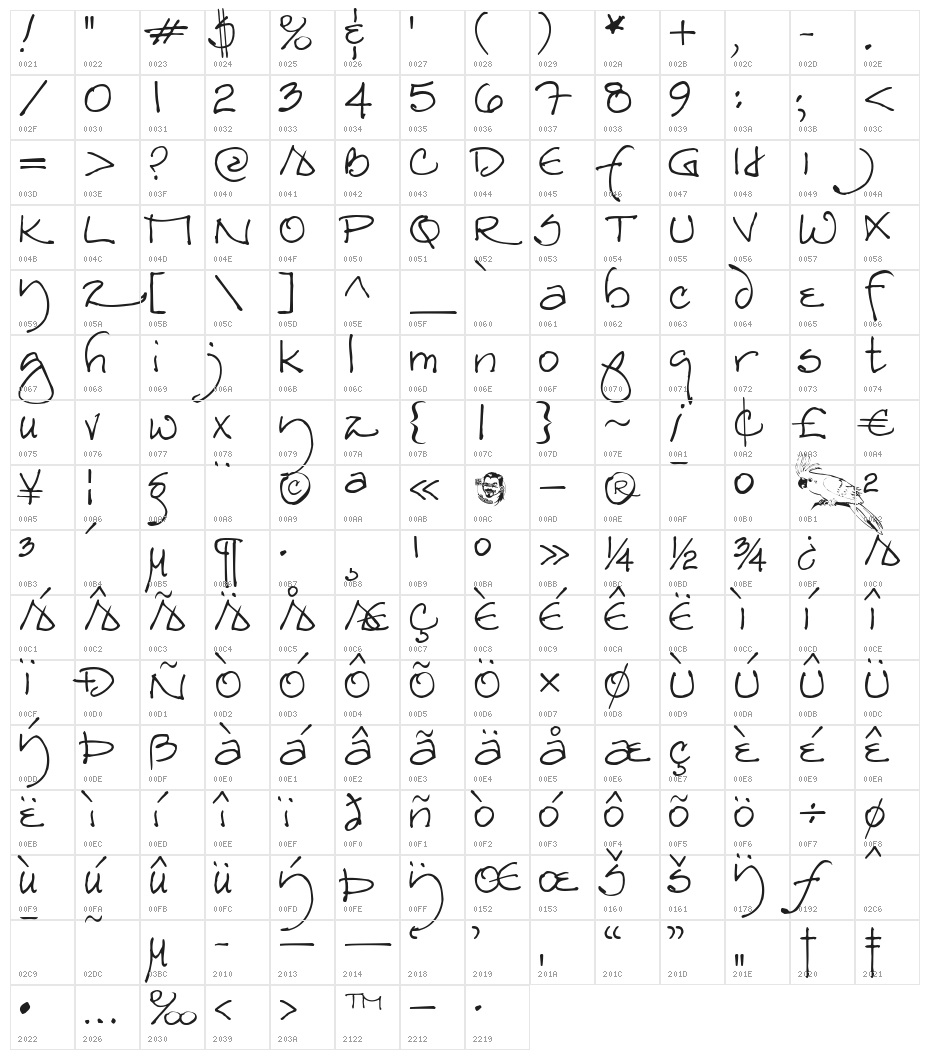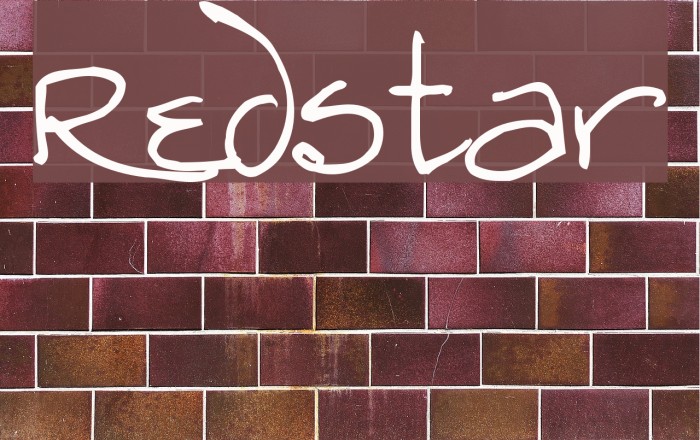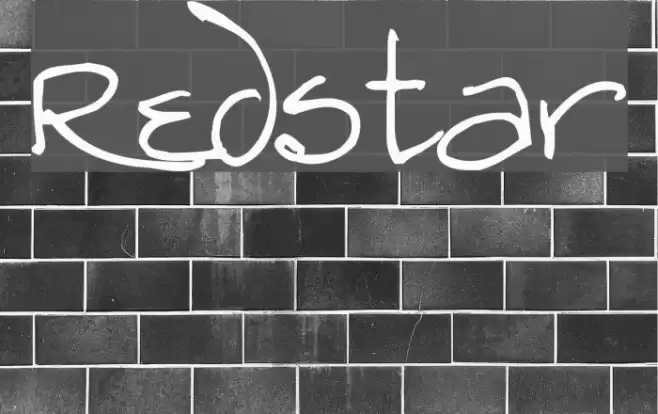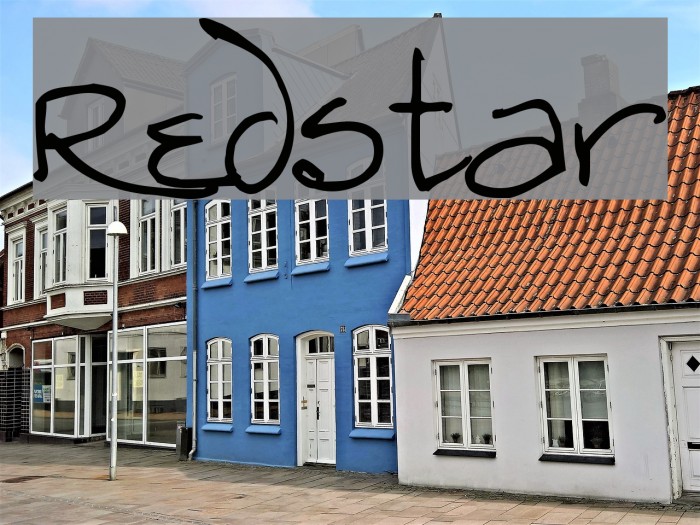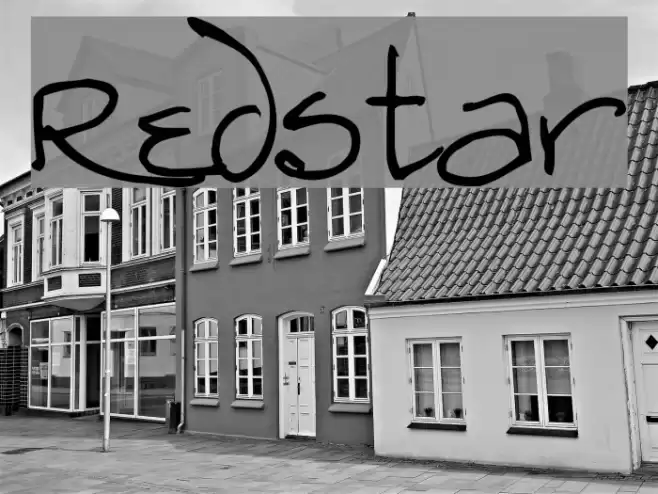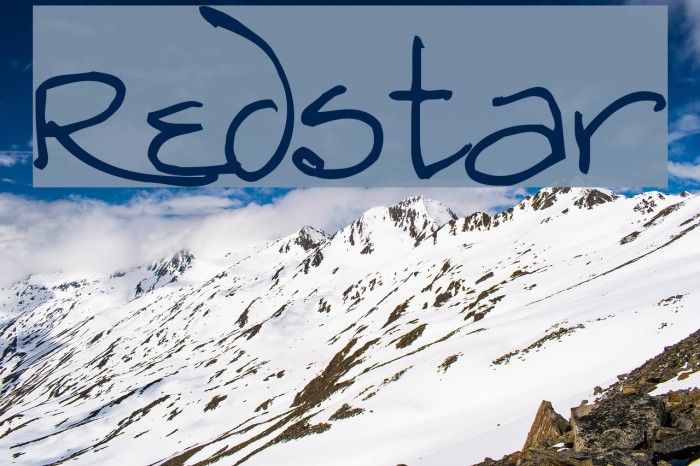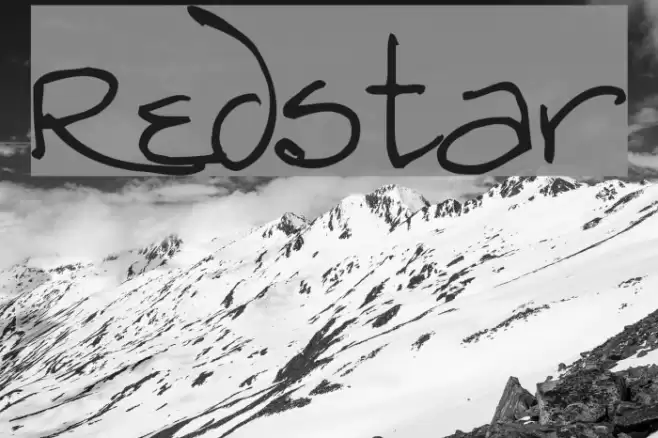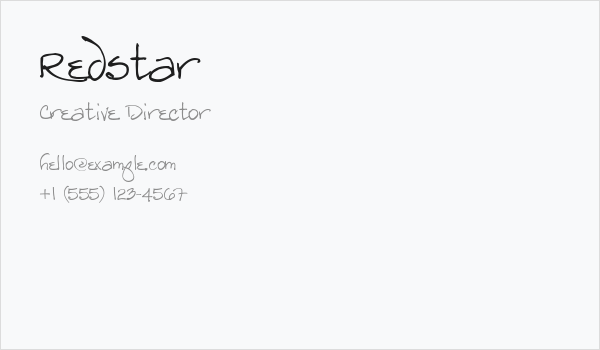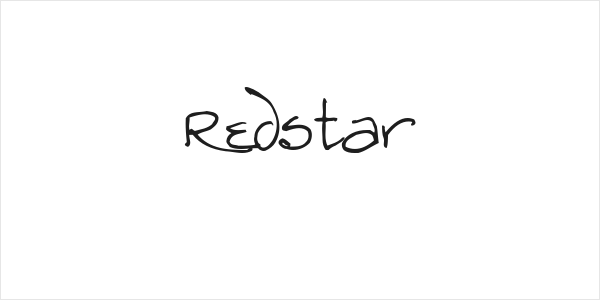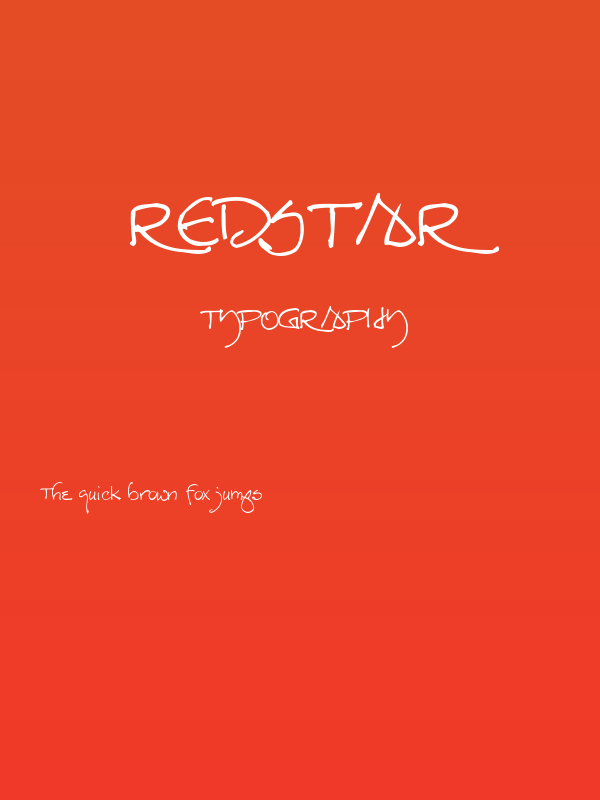
Redstar Font
Redstar Description
This font exhibits a dynamic and expressive handwritten style, characterized by its fluid and irregular strokes. The uppercase letters are bold and slightly slanted, giving a sense of movement and energy. The lowercase letters maintain a consistent flow, with some characters extending below the baseline, adding to its casual and artistic appeal. The numbers are playful and maintain the same handwritten aesthetic, while the special characters are creatively integrated, enhancing the font's overall personality. This font is ideal for projects that require a personal touch or a creative flair.
| Proposed Projects | Ideal for greeting cards, artistic posters, personal branding, and creative invitations. |